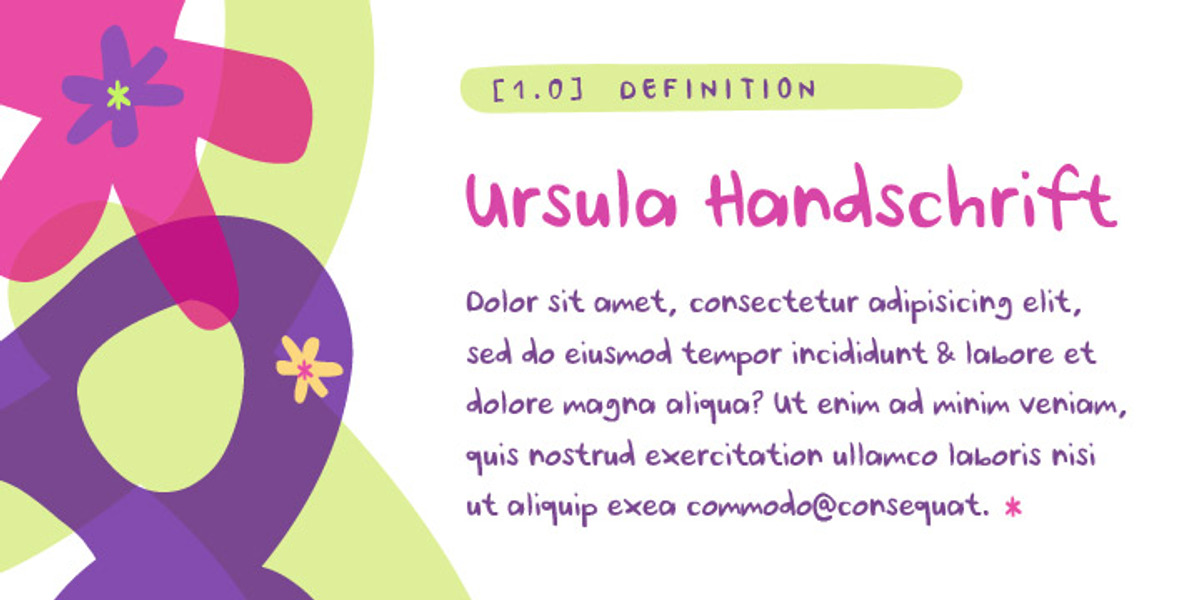
Ursula Handschrift
Ursula Handschrift is a friendly and expressive handwritten script font. Its individual characters are soft and organic, giving it a whimsical feel. This makes it well-suited for informal designs like scrapbooking, comic book lettering, or casual headings and image captions. The extended character set includes West European diacritics, making it suitable for multilingual use.